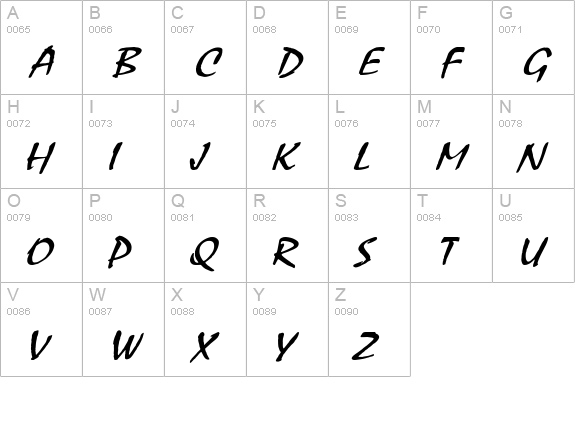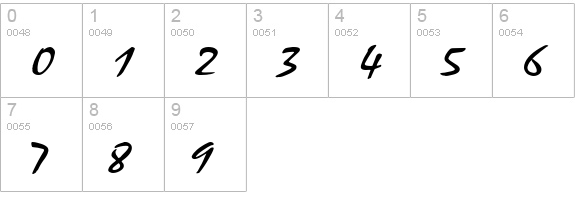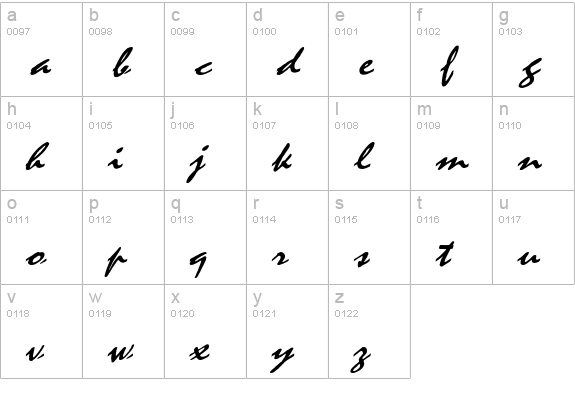
Mystic Wide Italic is a distinctive, extended-width, italic variant in the Mystic typeface family \xE2\x80\x94 well suited to design and typography projects.
Mystic Wide Italic font is a mesmerizing and enchanting typeface that combines elegance with a touch of mysticism. Its wide and slanted characters exude a sense of mystery and sophistication, making it perfect for adding a mystical flair to your designs. The italicized style adds a dynamic and fluid quality, enhancing the overall visual impact of your projects. Best of all, Mystic Wide Italic font is available for free download at FontsMarket.com. This means you can easily access this captivating font to elevate your designs without any cost. Whether you're working on branding, packaging, invitations, or any other creative project, Mystic Wide Italic font is sure to bring a unique and magical touch to your work. Download it today and unleash the mystic charm of this stunning typeface!